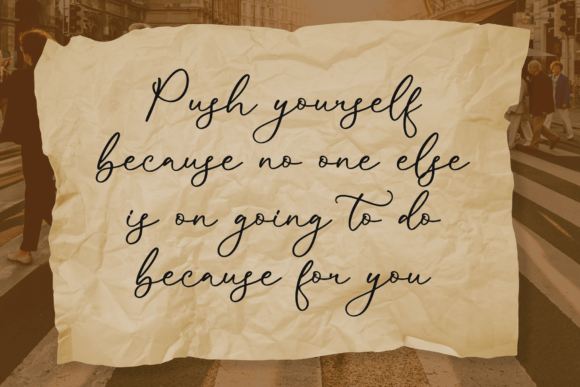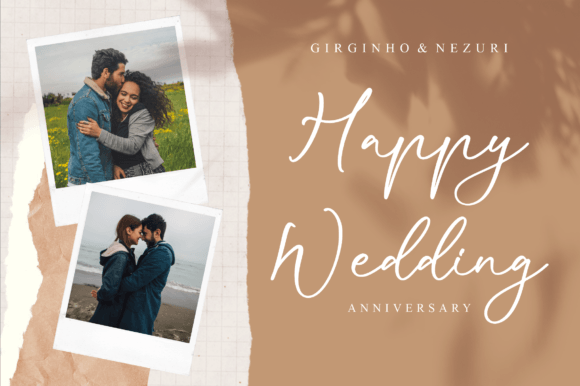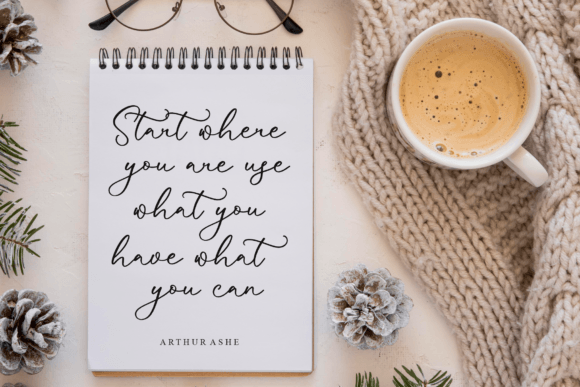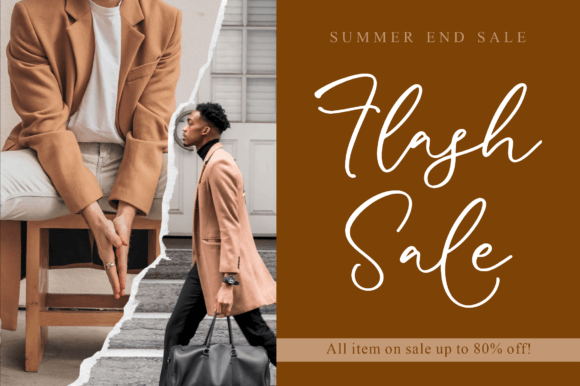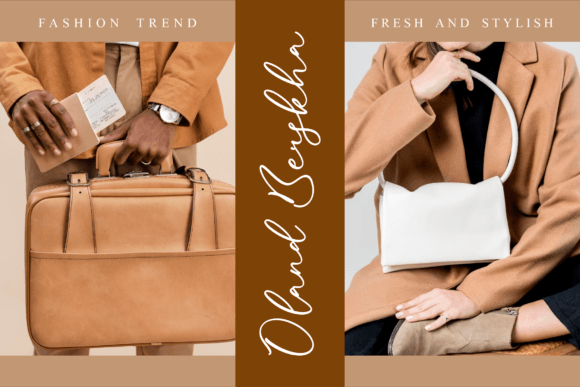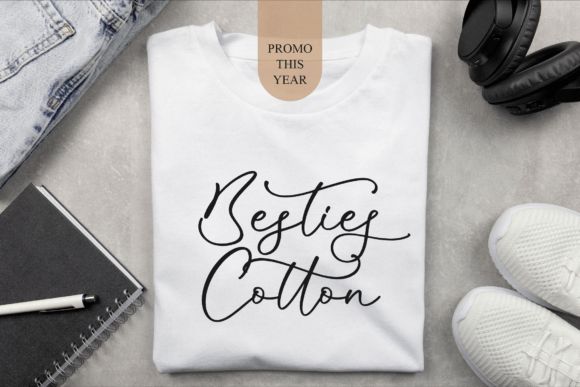
The Perfect Font for a Romantic Touch
As a designer, there’s nothing quite like the thrill of discovering a new font that speaks to your creative soul. Whether you’re working on a wedding invitation, a love letter, or a children’s book, you know the importance of finding the perfect font to convey your emotions. For me, that moment came when I stumbled upon the Almertta Wallend Font. Its delicate curves and whimsical flair captured my heart and sparked a flurry of ideas.
Handcrafted to evoke splendor and kindliness, the Almertta Wallend Font is the perfect addition to any design project. Its romantic and whimsical touch can add a refreshing elegance to your work, making it stand out from the crowd. Whether you’re a seasoned designer or just starting out, this font is sure to become a valuable asset in your toolkit.
- Unique Characteristics: Almertta Wallend features a unique blend of modern and vintage elements, with intricate details and ornate flourishes, making it perfect for luxury and high-end designs
Almertta Wallend Font Review
Overall, I think Almertta Wallend Font is a visually appealing choice for various design projects. ✨ The font’s unique combination of elegant and modern features makes it a great option for those looking for a distinctive look.
The Almertta Wallend Font’s strengths include its:
- High readability, even at smaller font sizes ✨
- Good compatibility with different font styles and sizes ✨
- Ability to convey a sense of sophistication and luxury ✨
- May not be the best choice for projects requiring a bold or aggressive tone ⚠️
- Some users may find the font’s curves and flourishes too ornate ⚠️
- Limited support for certain languages and character sets ⚠️
While Almertta Wallend Font has its limitations, I think it’s a solid choice for designers looking for a unique and elegant font. With careful consideration of the font’s characteristics and limitations, it can be a valuable addition to any design project.
Tips: Use the Almertta Wallend font for headings and titles to add a touch of elegance to your design.
Tips: Use the Almertta Wallend font to create custom typography and add a unique touch to your designs.
Tips: Use the Almertta Wallend font for presentations and documents to add a touch of sophistication and elegance.
The Almertta Wallend font is ideal for:
1. Luxury branding and marketing materials.
2. High-end fashion and beauty designs.
3. Elegant invitations and event materials.
4. Sophisticated presentations and reports.
Q: What is the recommended font size and line height for optimal readability with Almertta Wallend Font?
For optimal readability, we recommend using font sizes between 12pt and 18pt, with a line height of 1.2 to 1.5 times the font size. This will help ensure that the text remains clear and legible, even at smaller sizes.